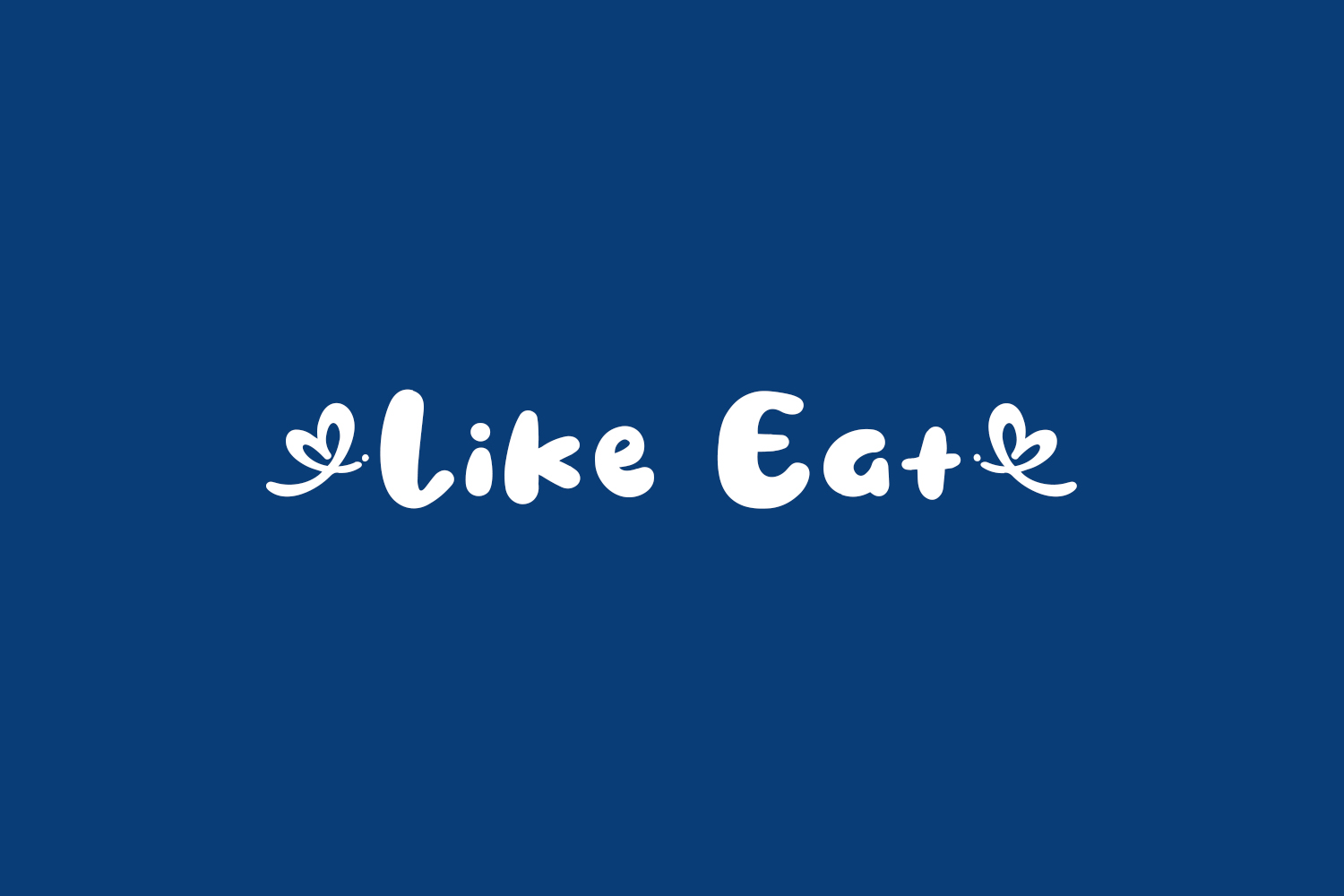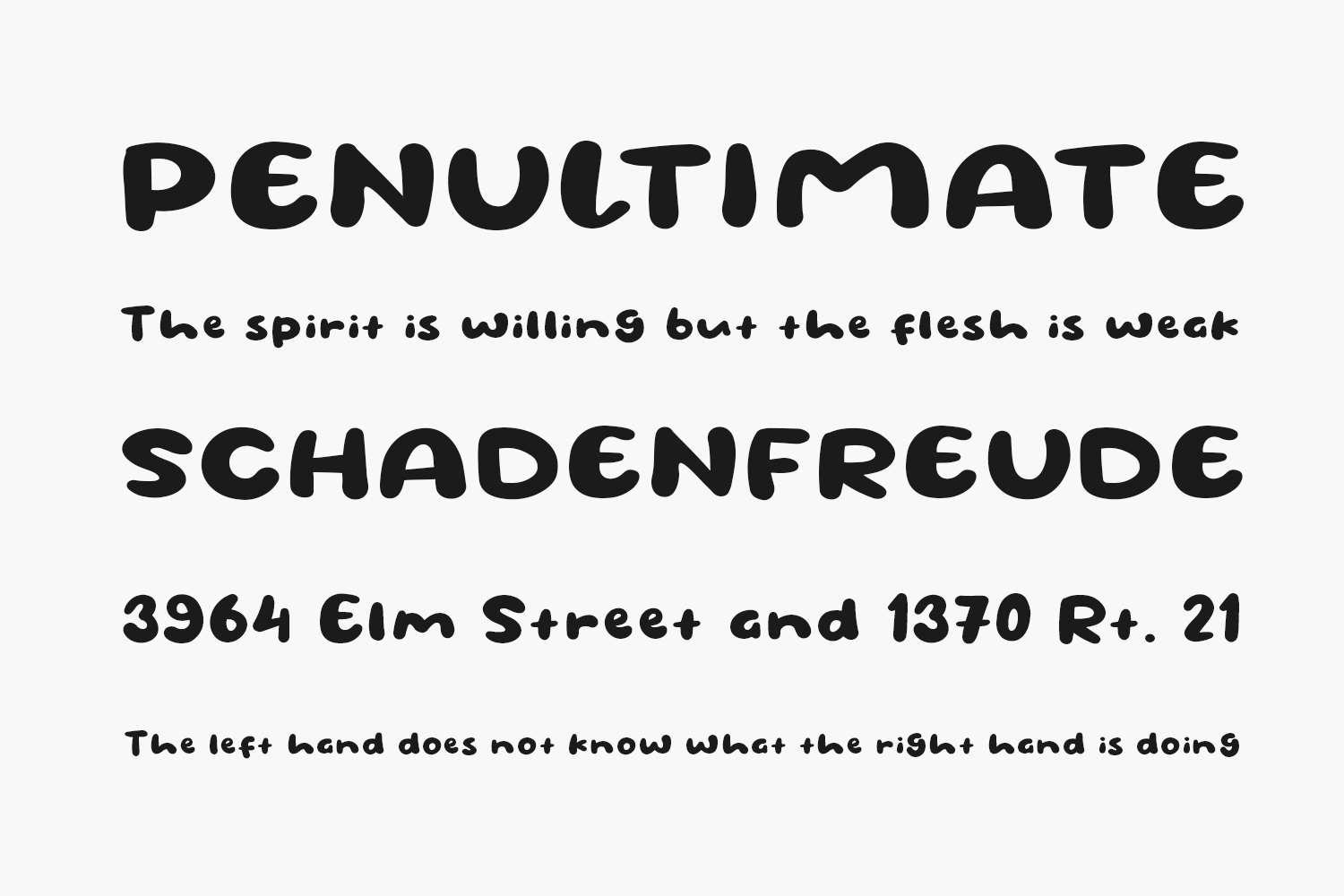
Like Eat Free Font is a modern and fancy display font perfect for posters, logos, magazines, book covers, banners, and many more! Get this amazing freebie, and use it to create lovely designs. Like Eat Free Font was designed by Khurasan and is free for personal or commercial use.